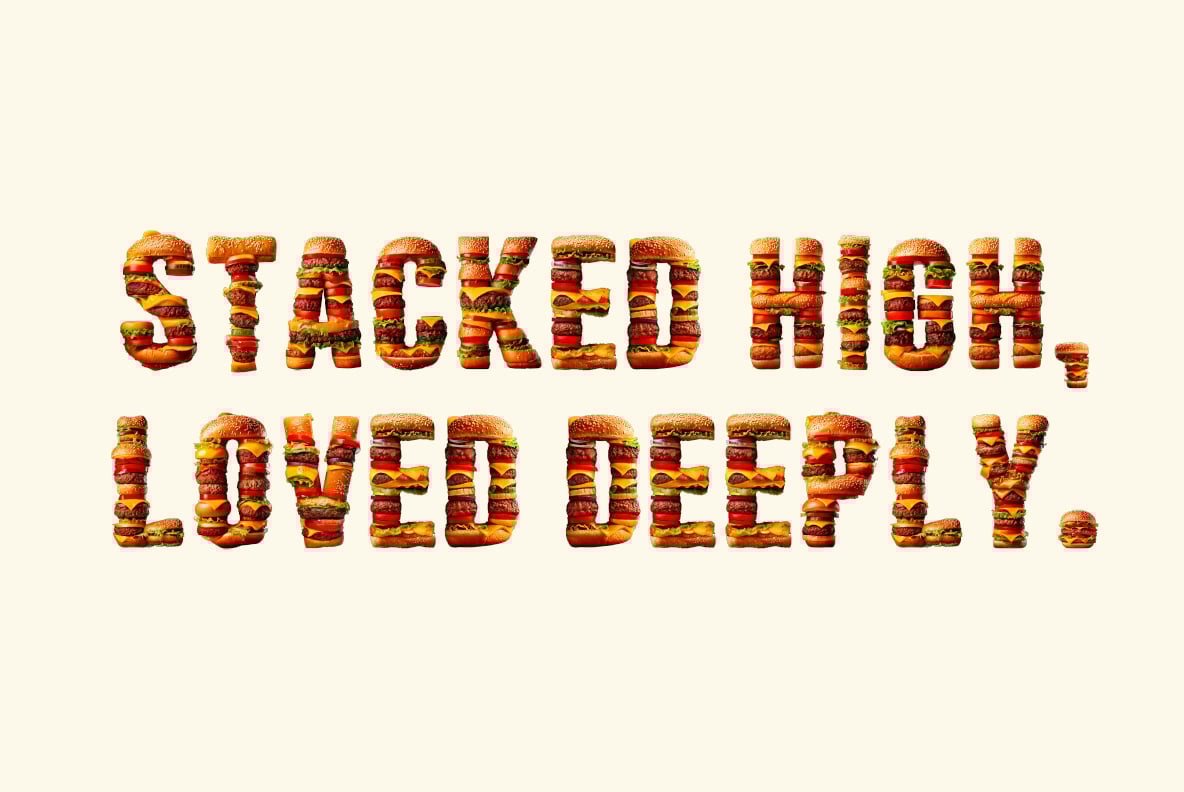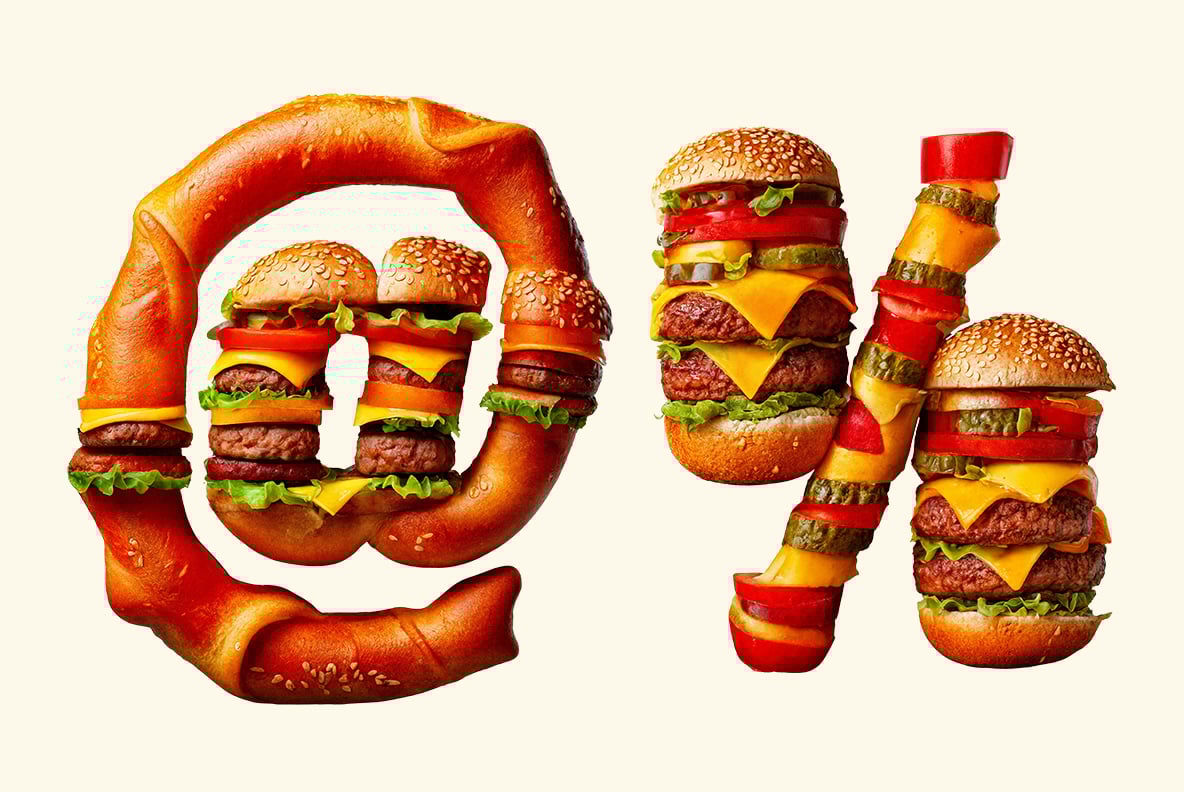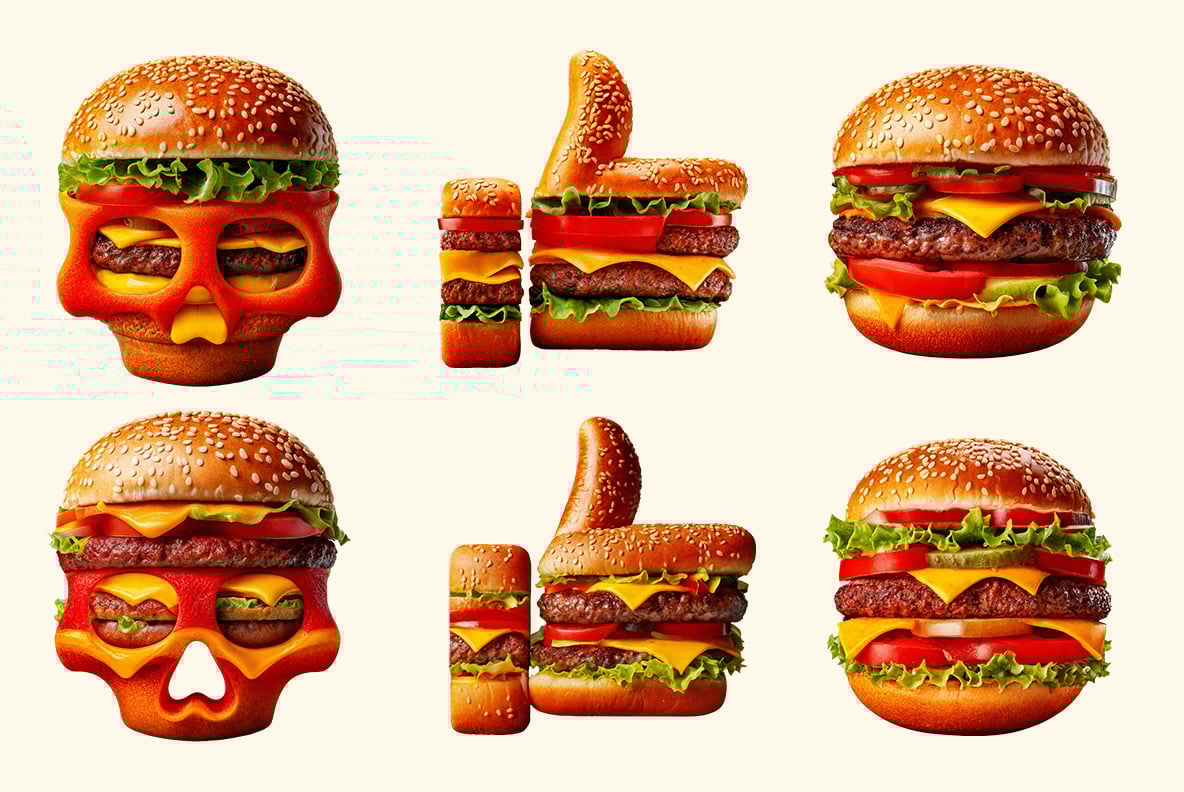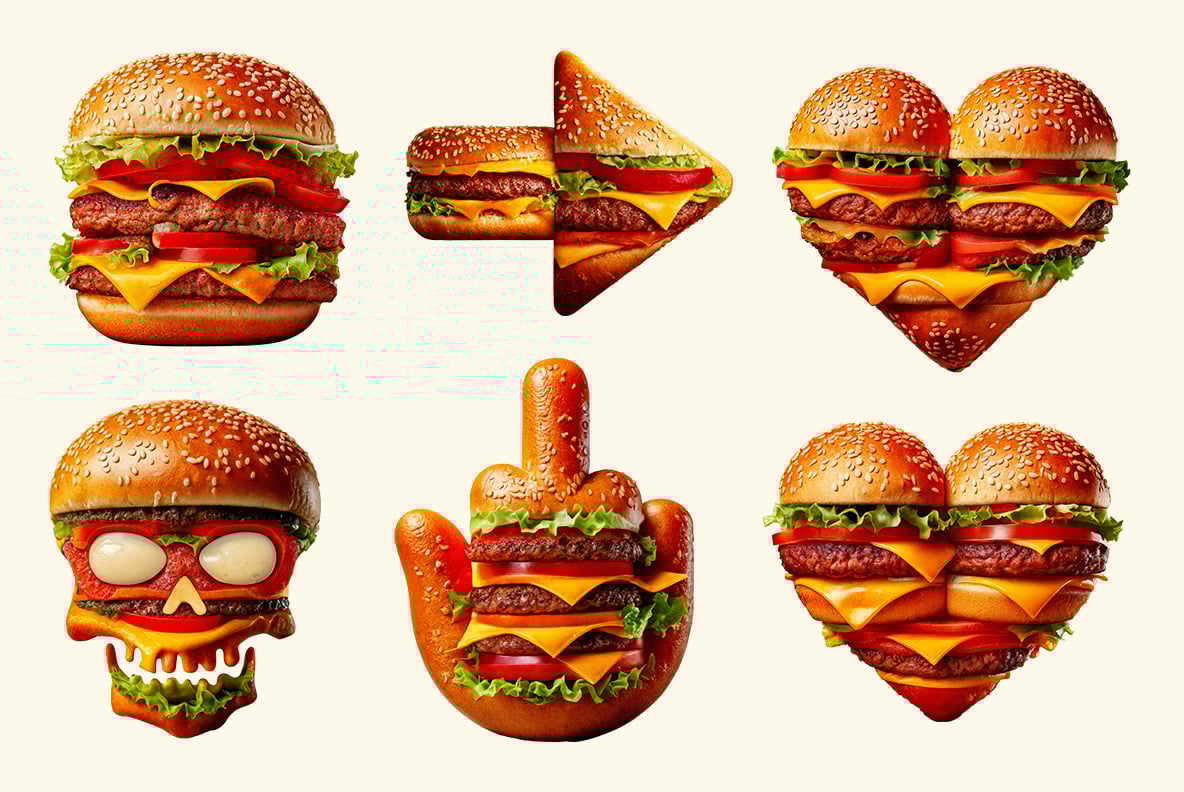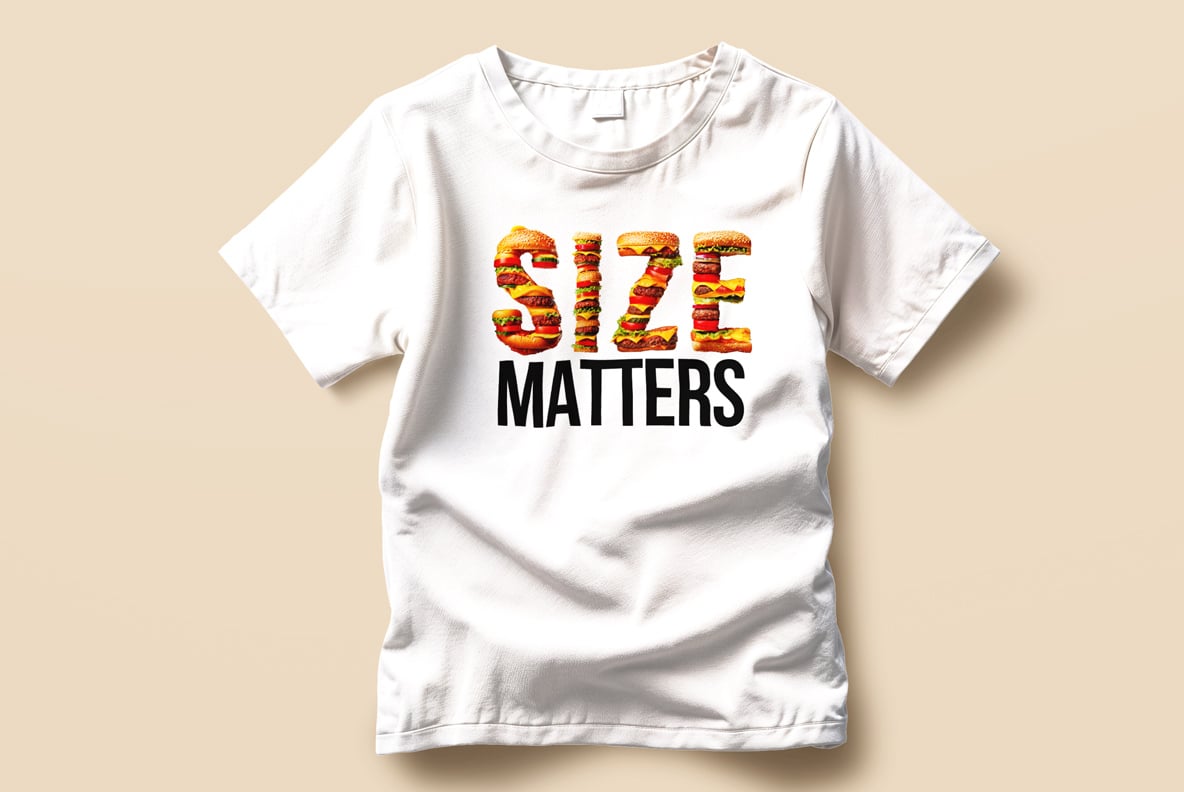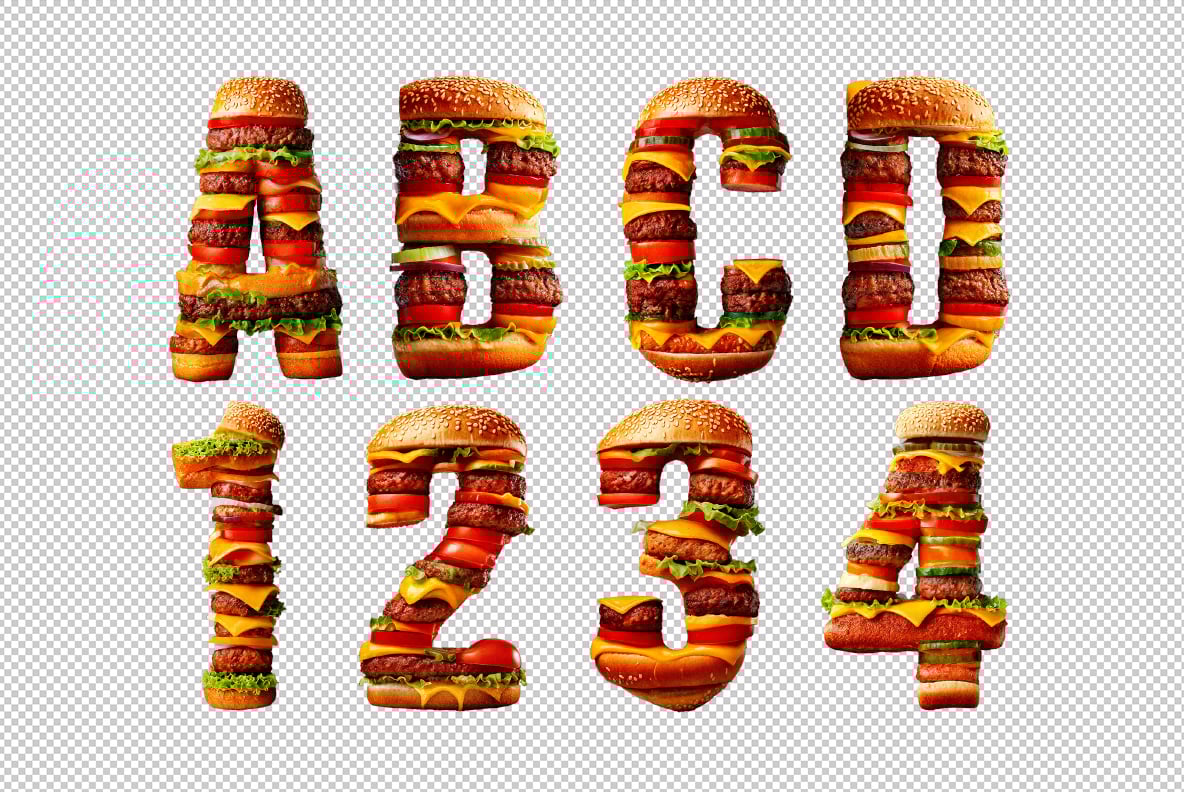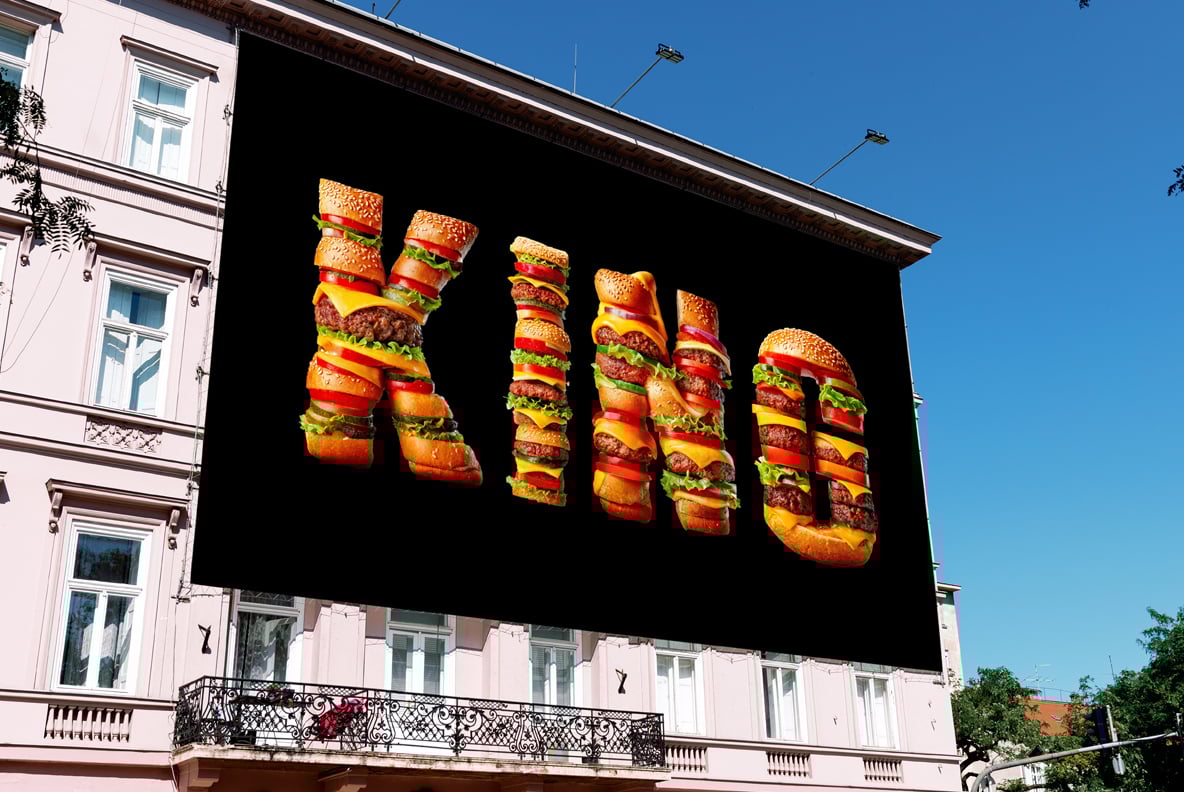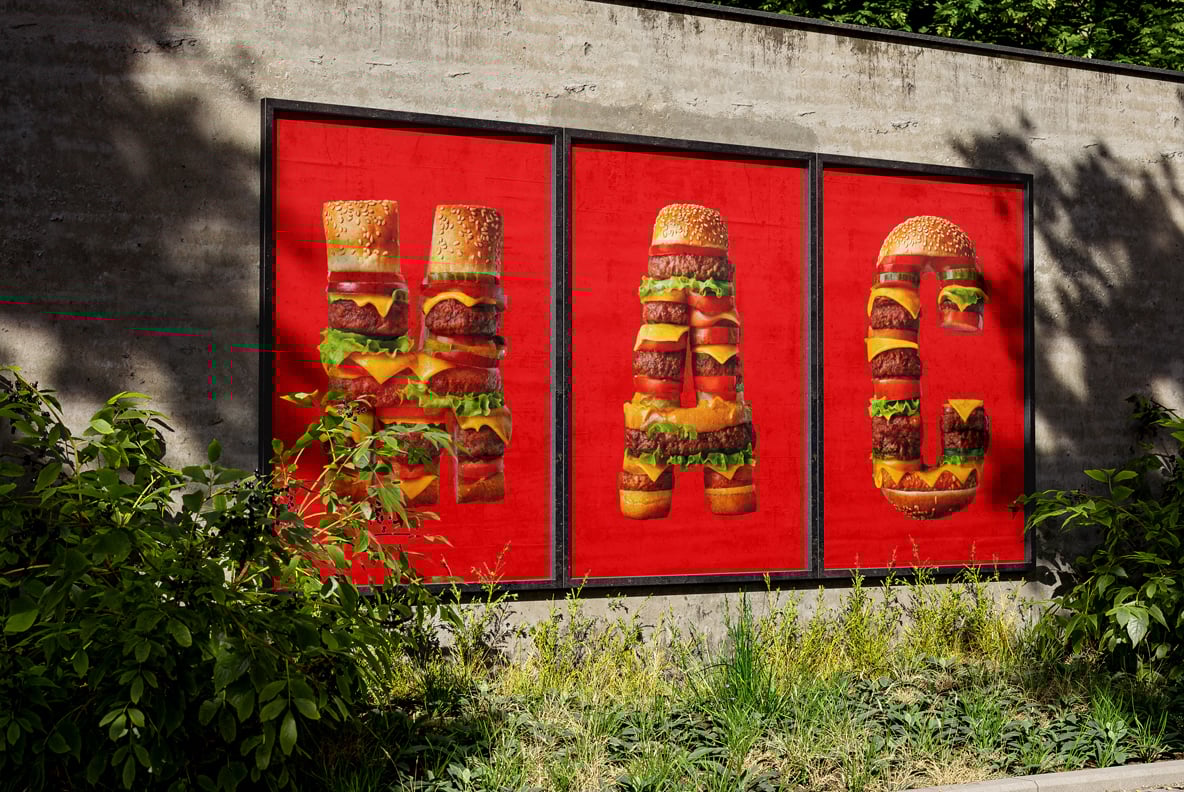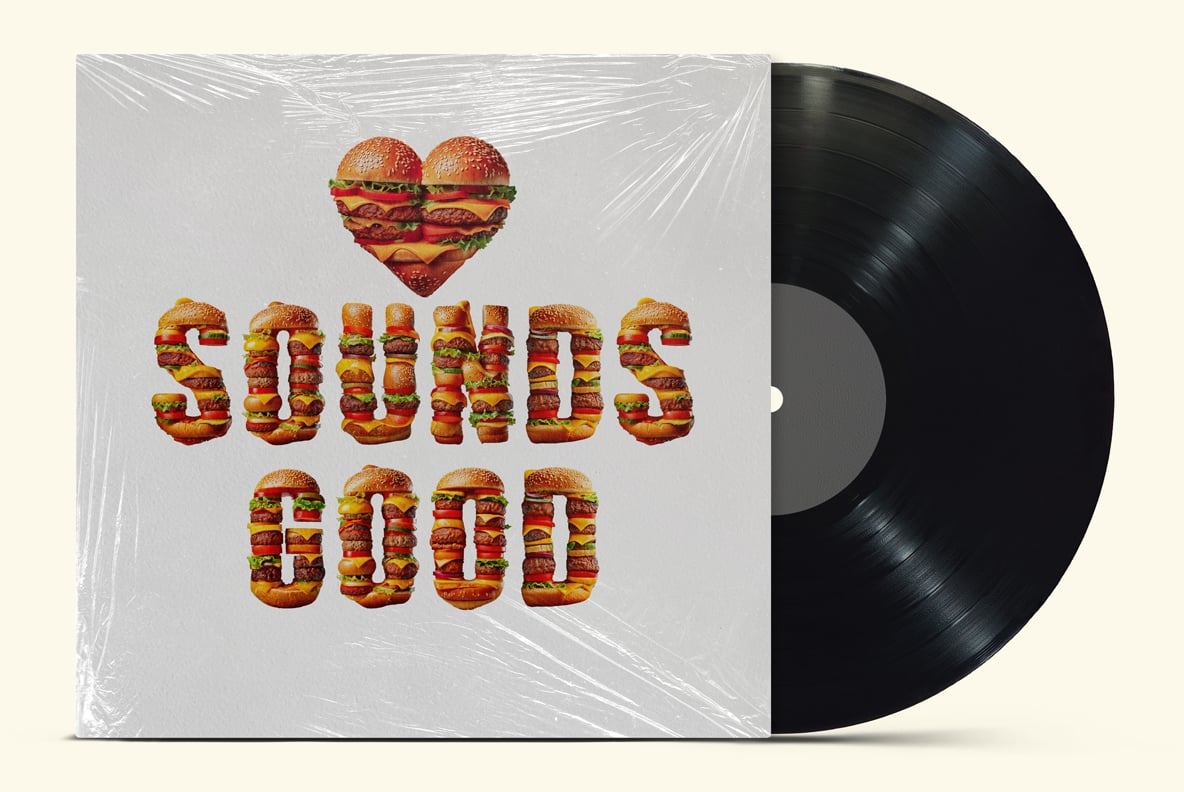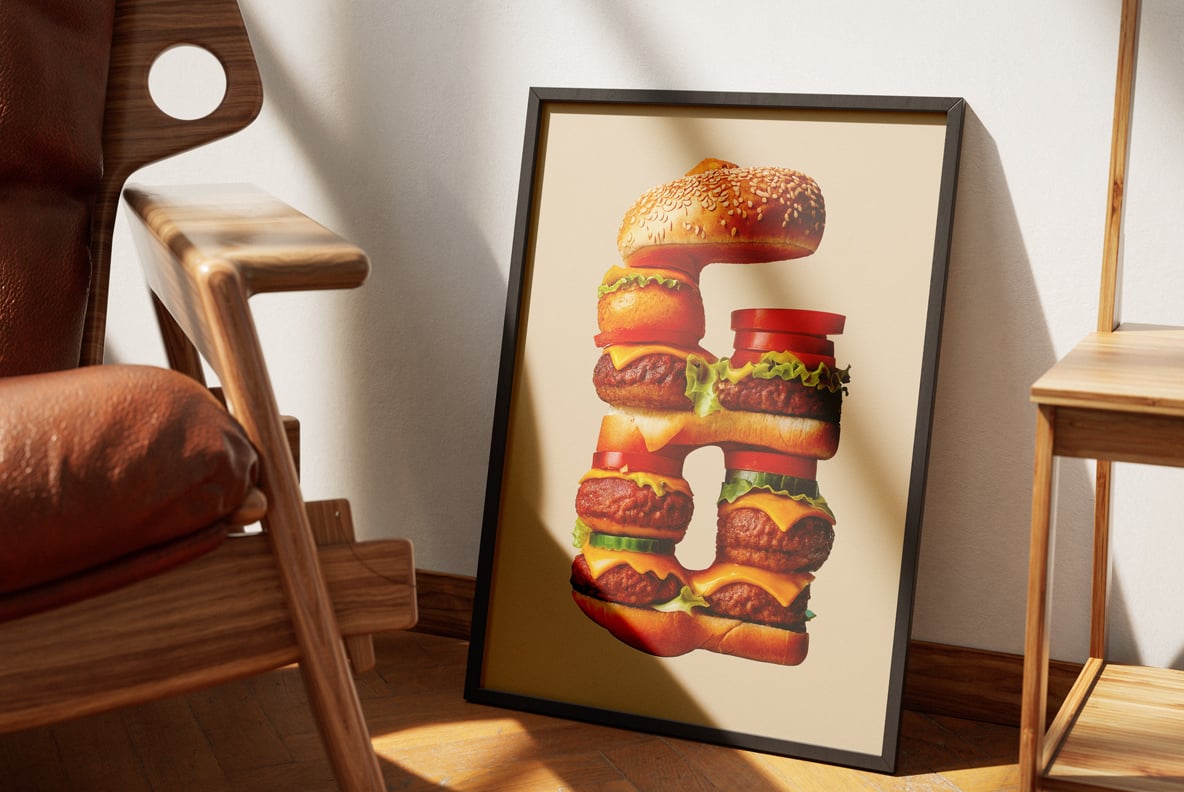
Burger Font
The Burger Font is a mouthwatering masterpiece, stacking letters high with juicy patties, melted cheese, crisp lettuce, pickles, tomatoes, and fluffy sesame buns. Each character looks like a gourmet burger tower, ready to be devoured by both your eyes and imagination. It’s playful, bold, and deliciously over-the-top — perfect for foodie branding, burger joint logos, or any design that craves flavor and fun. This font doesn’t just spell words; it sizzles with personality, making every letter a tasty celebration of indulgence. Warning: may cause sudden hunger and irresistible burger cravings. Bite into creativity with Burger Font!
A high definition OpenType Font. Contains uppercase characters, numerals and basic punctuation. (Draw height roughly 800 pixels). All letters and glyphs that comprises this font you can see on the preview.
Others : ! ? - . ' $ € % & # @